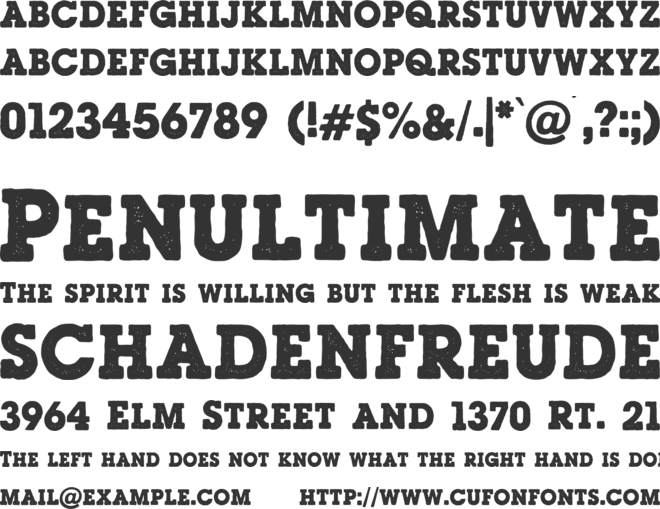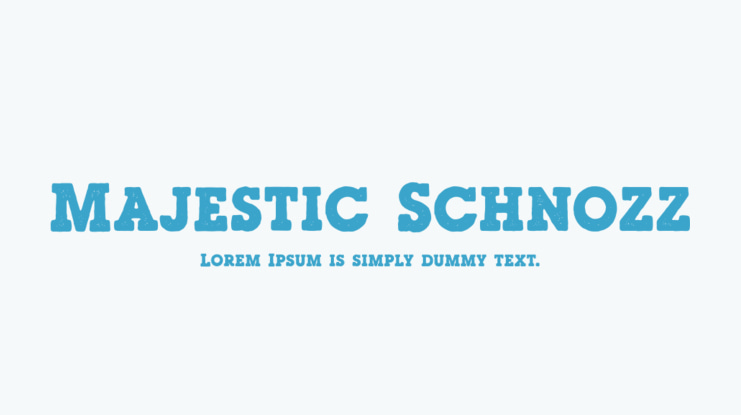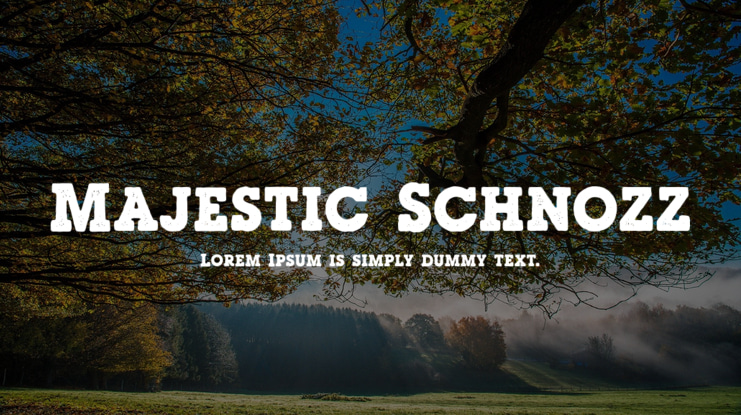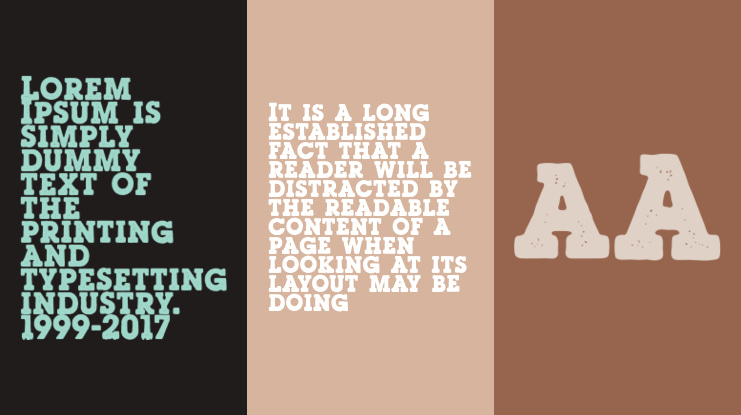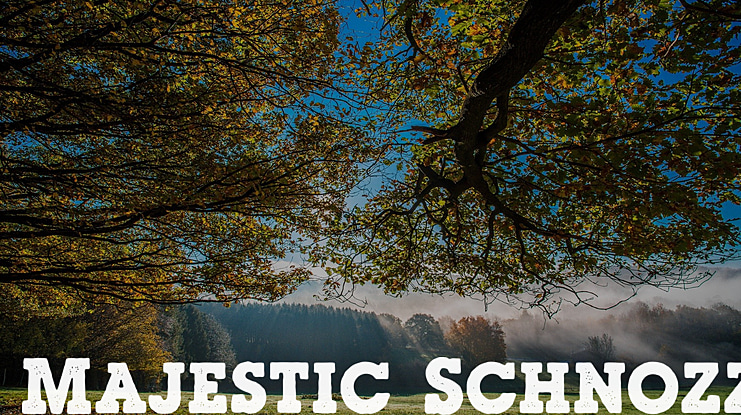
Majestic Schnozz Font
S. John Ross
Sometimes, a plush dog can change your life in unexpected ways, and the most accomplished plush dog I've ever met inspired this font. The way the glyph weight increases very slightly toward the bottom? That's him. The spotted stressing? That's him, too. The old-fashioned formality? The softly rumpled lines of the exterior? That's him. That's Englebert. His full name (translated approximately from Dog German) is Englebert Dur Wunderhund Awesome Sauce III, and he's not only a Dogtor (indeed, a Professor), he's a Beagle-at-Law, a certified Style Hound, sometimes a private detective, and one of the world's foremost Hello Kitty enthusiasts (Englebert is comfortable with the term "Hello Kitty Fanatic," which speaks beautifully of his character, I daresay). Englebert is not only majestic, adorable and dignified, he is a communicator - a dog that speaks truth in times of uncertainty, calm in times of stress, and has real opinions on birds and cats that we should all seek to understand. He also has some advice for all of us, each and every one: get more sleep. Sleep is good for you.
MAJESTIC SCHNOZZ is a full US-Keyboard small-caps stressfont with several extras for additional European alphabets. Enjoy!